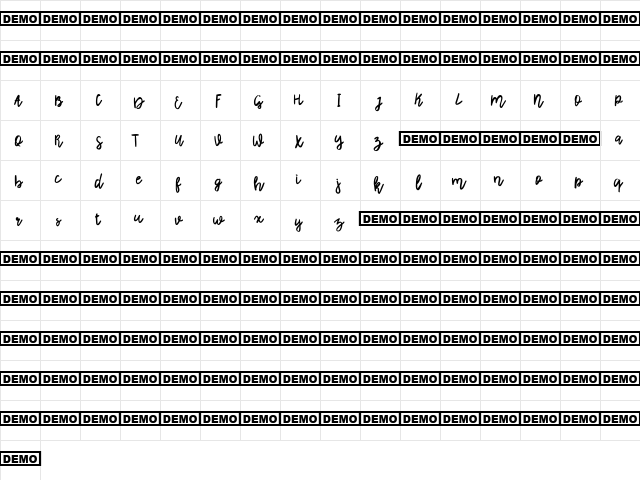
Rhiner Regular
| Foundry | Mr. Typeman |
| Designer | Hleb Zhyhunou |
Design Context for Rhiner Typeface
Rhiner is a composed and adaptable typeface that performs quietly and consistently across a wide range of design contexts.